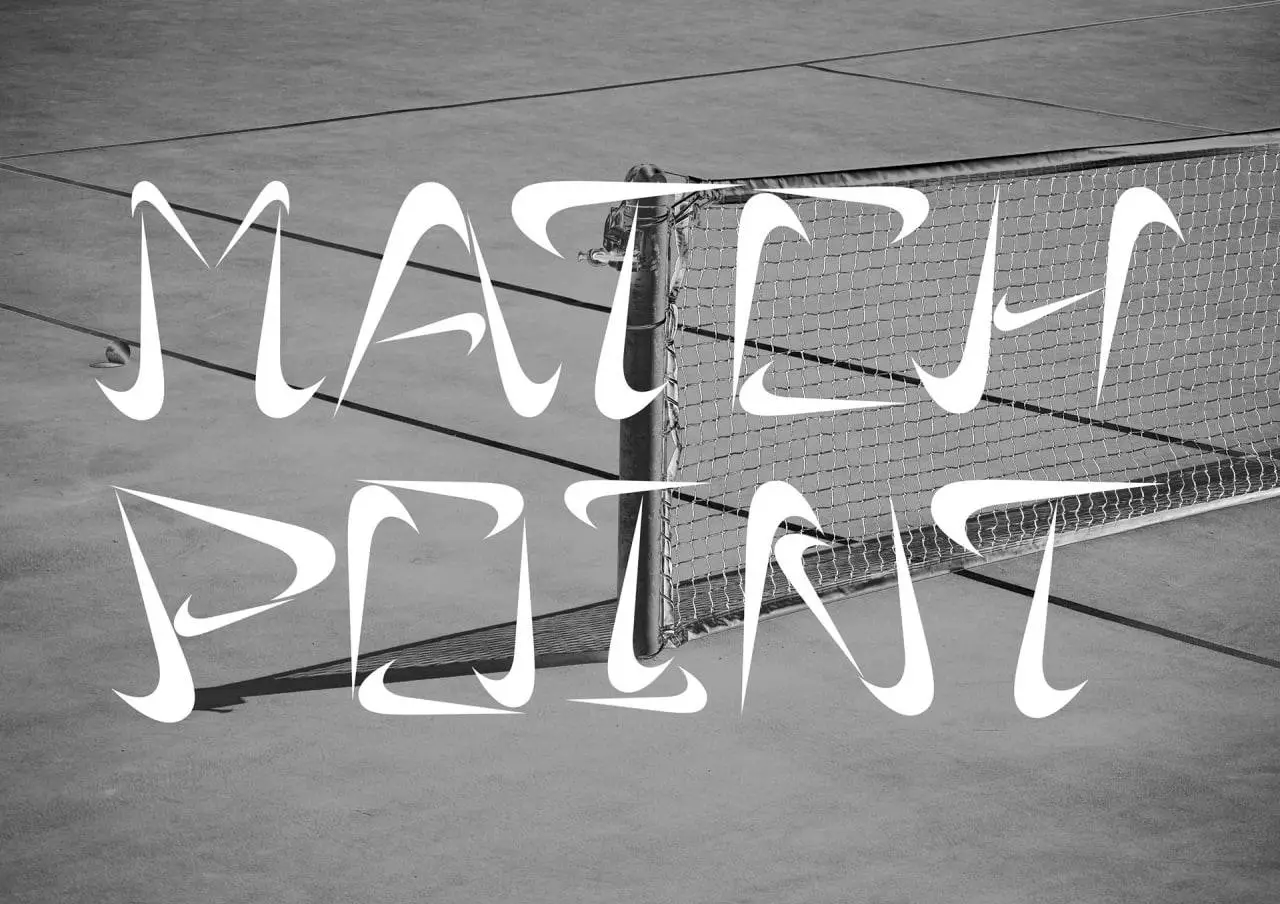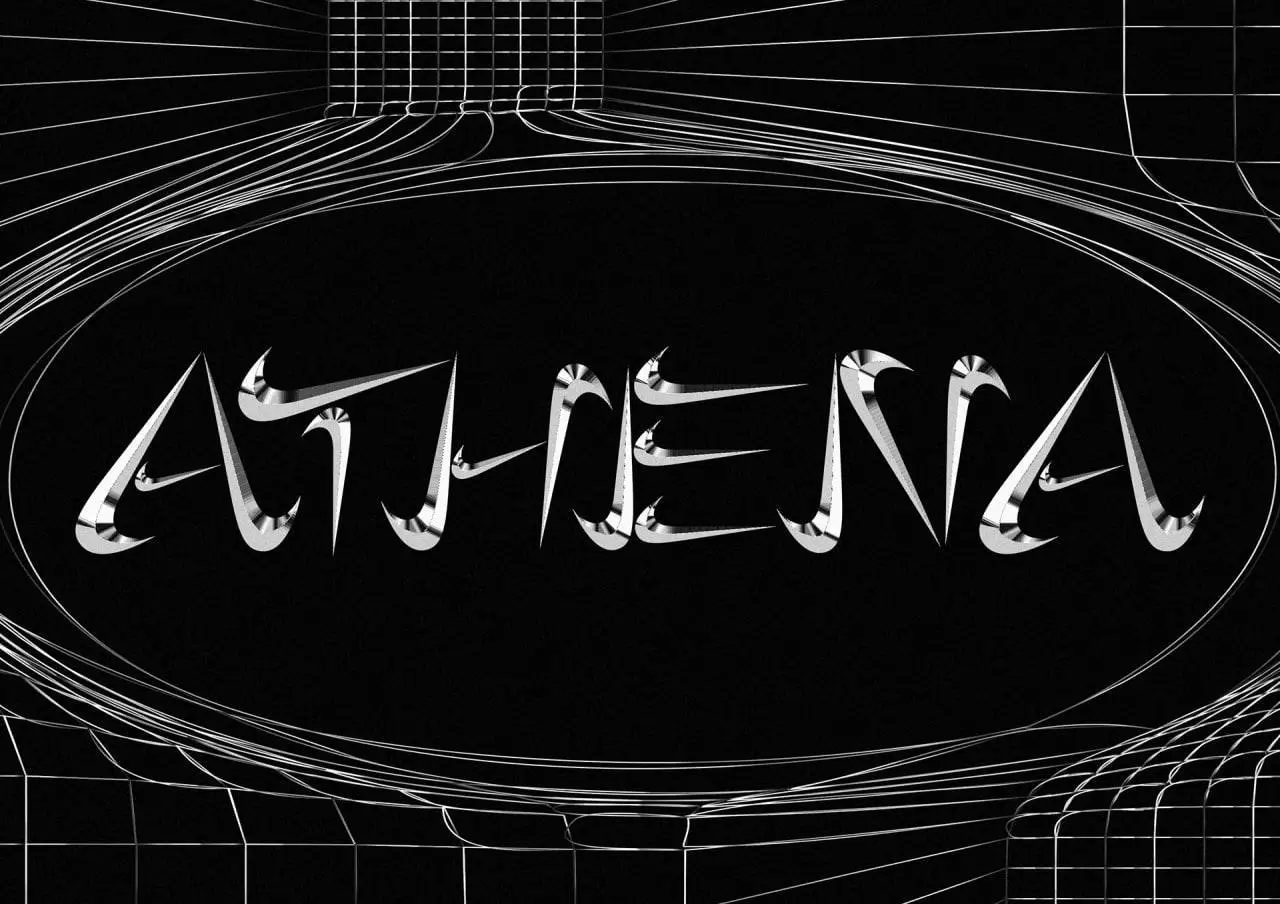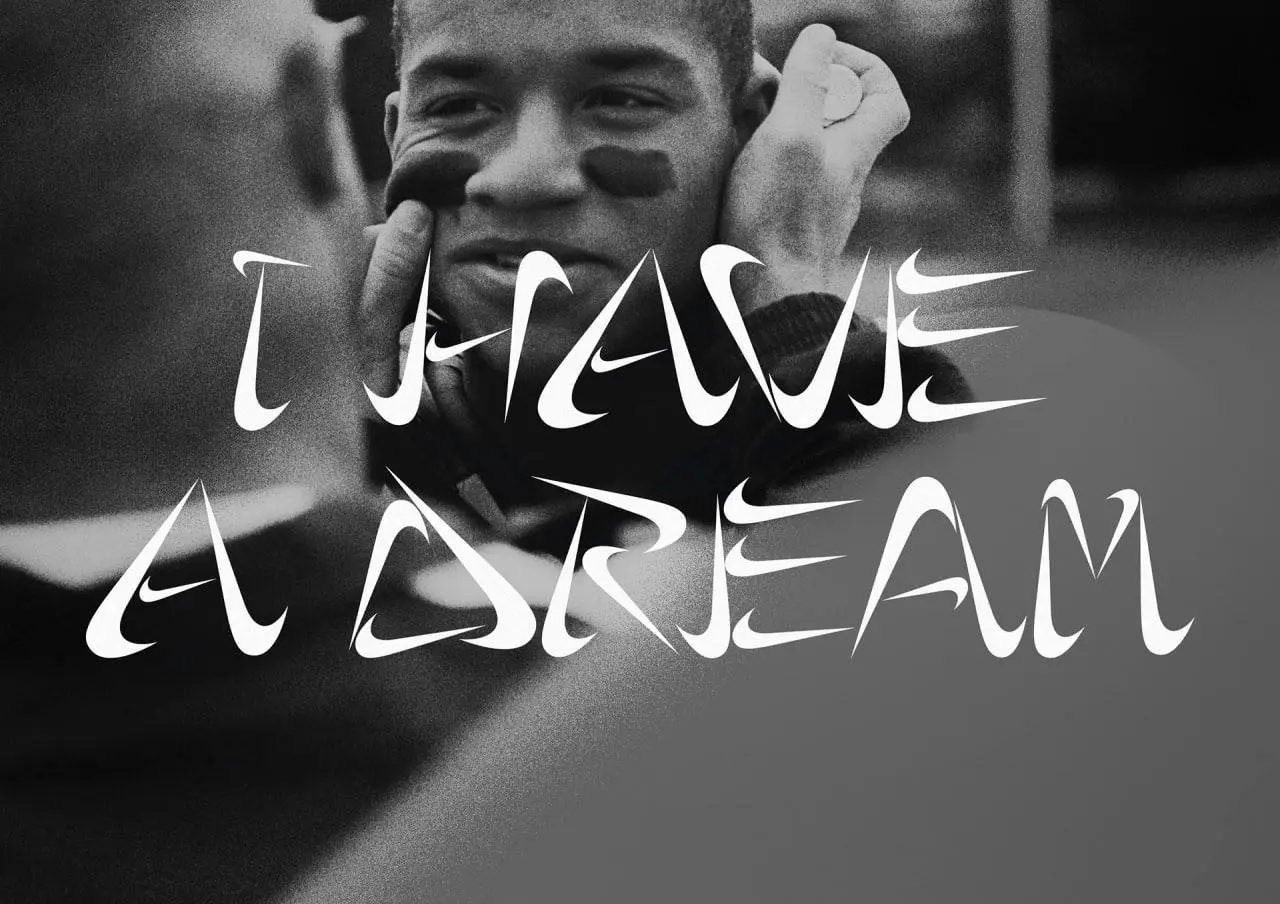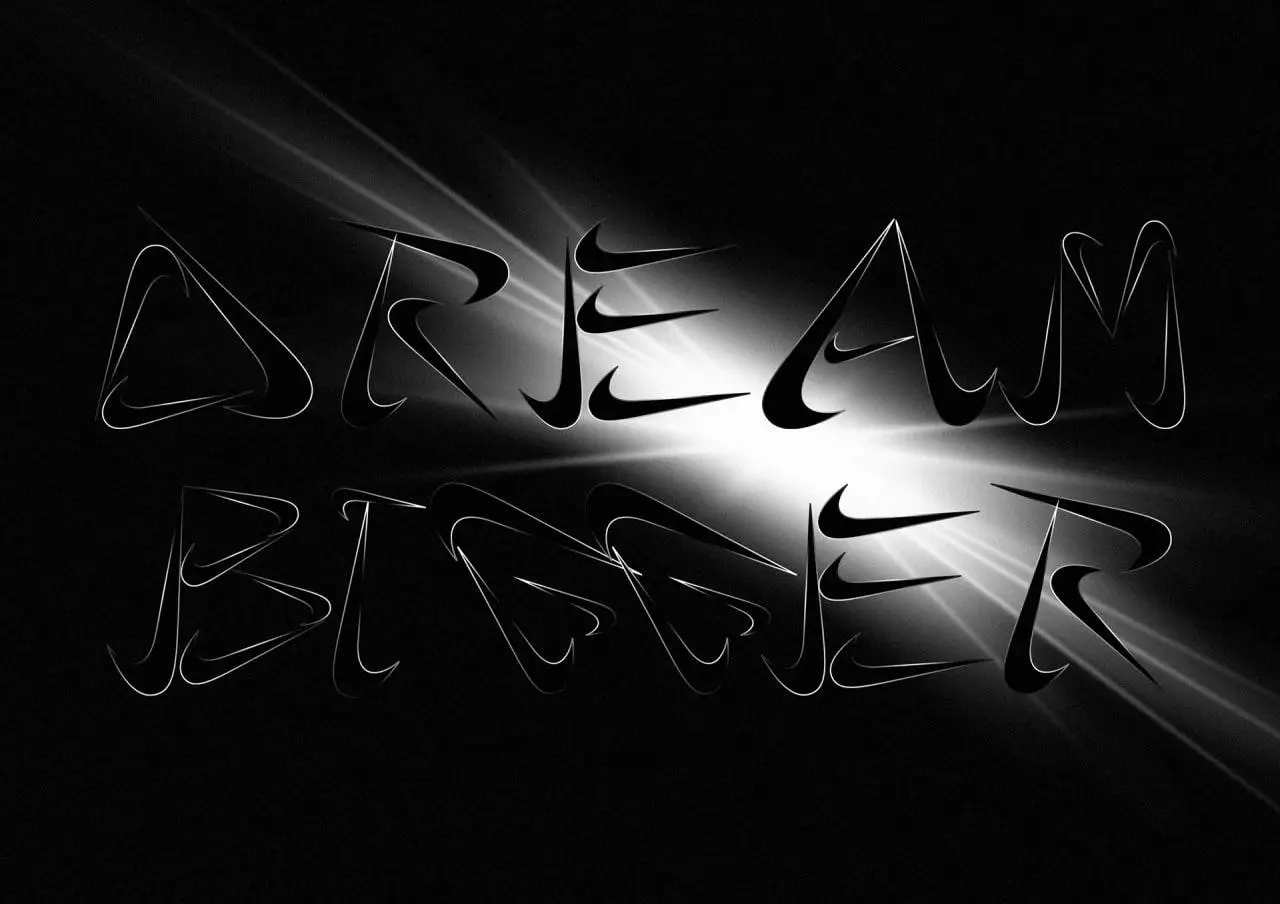
Athena Typeface Made With A Swoosh #Font
The Athena Typeface is a unique font that features a distinctive swoosh design, perfect for adding a modern touch to your projects. This typeface is versatile and can be utilized in various applications, from branding and logos to web design and print materials.
• Stylish swoosh design
• Multiple weights for flexibility
Ideal for creating eye-catching logos, promotional materials, and digital content, this typeface will help your designs stand out.